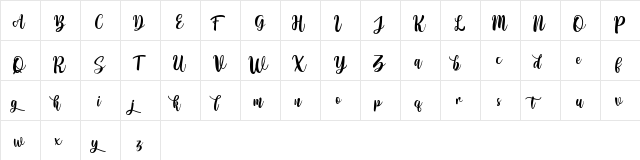
Hello Anissta Script
| Style | Script |
| Foundry | Astageni Type |
| Designer | Nur Solikh |
Design Context for Hello Anissta Typeface
Hello Anissta brings a calligraphic fluidity to the page — its connecting strokes and expressive curves give it an unmistakably human quality.
Font Pairing: Combine Hello Anissta with a simple geometric sans for maximum contrast — the tension between flowing curves and clean structure is a classic typographic pairing.
Pro Tip: Use Hello Anissta for short runs of text — names, titles, or taglines. Extended body copy in script faces tires the eye quickly.